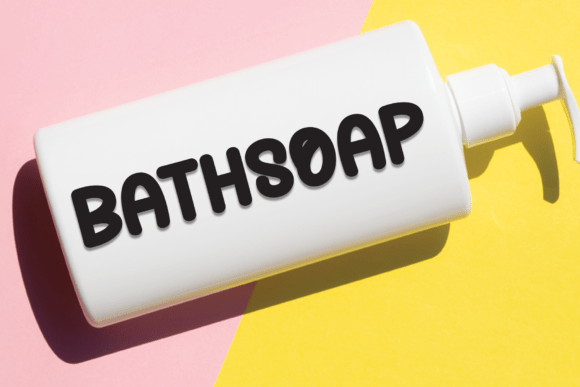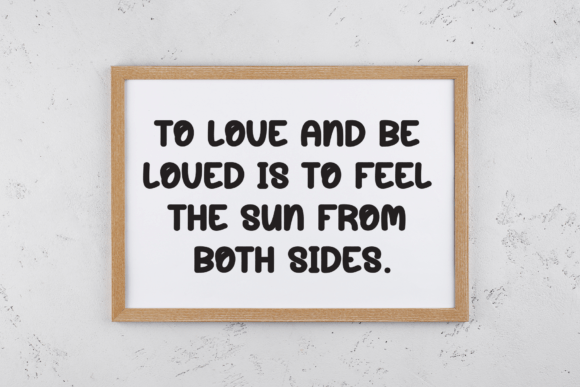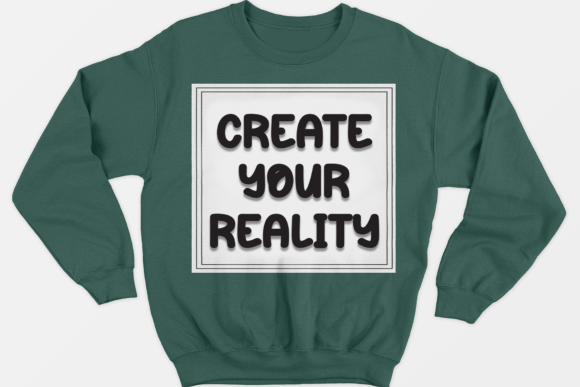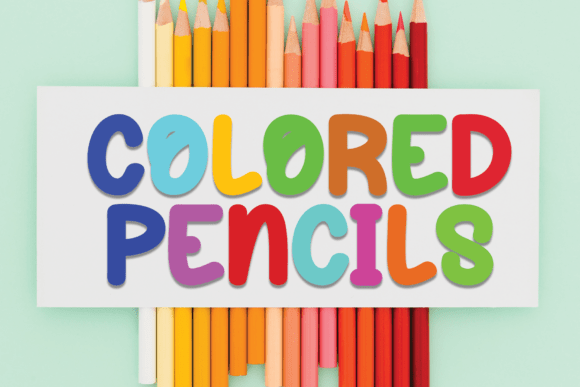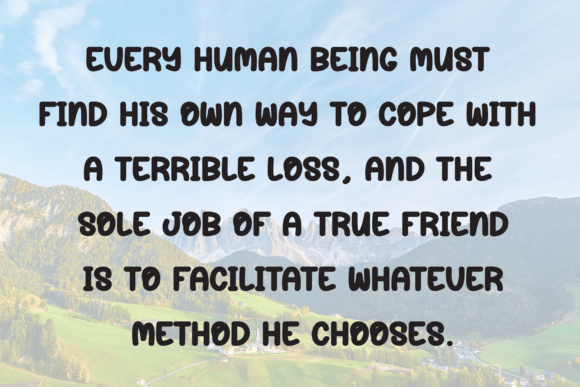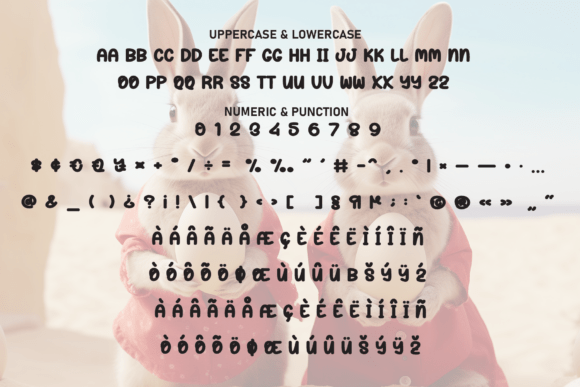
Summer Vibes in Type
Bunny Summer Font is a casual and neat display font designed to bring warmth and clarity to your projects. With its clean structure and approachable style, it suits branding, headlines, and everyday designs. The balanced letterforms offer readability and charm, making every message feel genuine and inviting.
This font is a valuable addition to any designer’s toolkit, offering a unique blend of style and substance that’s sure to elevate your work and leave a lasting impression.
Bunny Summer Font Key Features
- Unique Characteristics: Bunny Summer Font features a playful, hand-drawn style with a mix of bold and cursive elements, making it perfect for whimsical and creative projects.
- Character Set: The font includes a comprehensive character set, including uppercase and lowercase letters, numbers, and punctuation marks.
Bunny Summer Font Review
As a designer, I’ve had the chance to work with a wide range of fonts, but the Bunny Summer Font caught my attention with its unique and playful vibe.
Here are some things that ✨ really work well:
- Unique character set: Bunny Summer Font features a unique character set that’s perfect for adding a whimsical touch to designs.
- Handwritten feel: The font has a beautiful handwritten feel that makes it perfect for creative and artistic projects.
- Customizable: The font is fully customizable, allowing you to adjust the size, color, and style to fit your design needs.
However, I did notice a few limitations:
- Limited font weights: Bunny Summer Font only comes in a few font weights, which can make it less versatile for certain design projects.
- Not ideal for body text: The font is best suited for headings and titles, as it can be difficult to read in large blocks of body text.
- May require adjustments: Depending on the design, you may need to make some adjustments to the font to get the desired look.
Overall, I think the Bunny Summer Font is a great choice for designers looking to add a playful touch to their projects. With a little creativity and customization, you can get some amazing results.
The Bunny Summer Font is perfect for:
- Summer-themed designs
- Food and drink branding
- Outdoor and recreational events
For optimal results, use the font in conjunction with bright and pastel colors to evoke a playful and carefree atmosphere.
Alternatives to Bunny Summer Font
Great Vibes is a playful, cursive font perfect for adding a touch of whimsy to your designs. It features elegant, flowing lines and a carefree feel that’s ideal for summer-themed projects, party invitations, and social media graphics. Unlike Bunny Summer Font, Great Vibes has a more sophisticated and refined look.
Ostrich Sans is a modern, sans-serif font that’s great for creating clean and minimalist designs. It features a unique, rounded shape and a friendly feel that’s perfect for branding, logos, and digital products. Compared to Bunny Summer Font, Ostrich Sans is more straightforward and easier to read, making it ideal for large blocks of text.
Lobster is a stylish, script font that’s perfect for adding a touch of elegance to your designs. It features a vintage feel and a sophisticated look that’s ideal for wedding invitations, luxury brands, and high-end products. Unlike Bunny Summer Font, Lobster is more formal and less playful, making it perfect for creating a sense of sophistication.